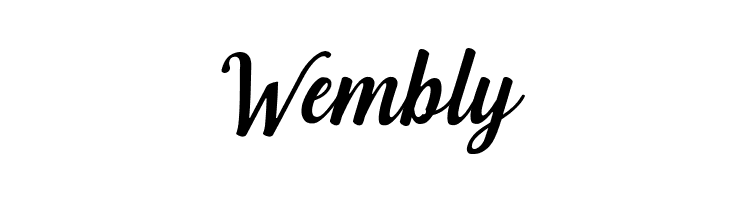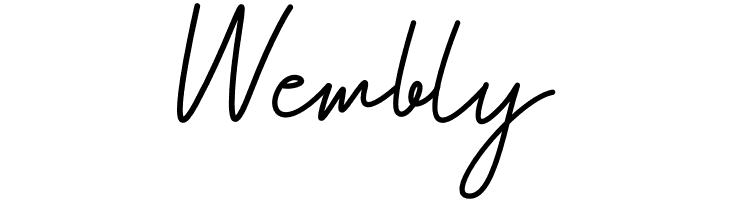
A lively, cursive font with a handwritten style, perfect for personal and elegant designs.
A lively, cursive font with a handwritten style, perfect for adding a personal touch.
A fluid, handwritten script font with a casual elegance.